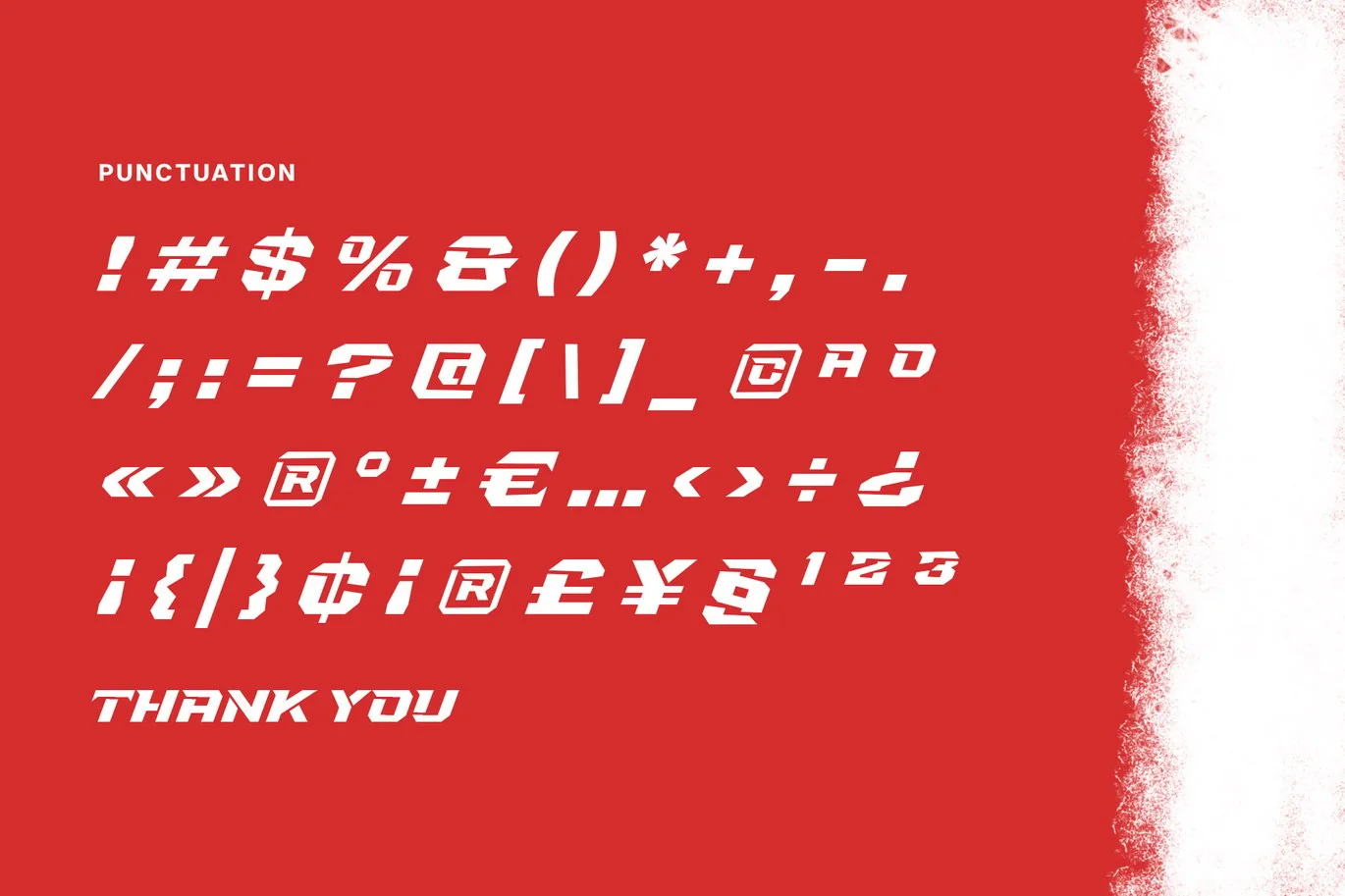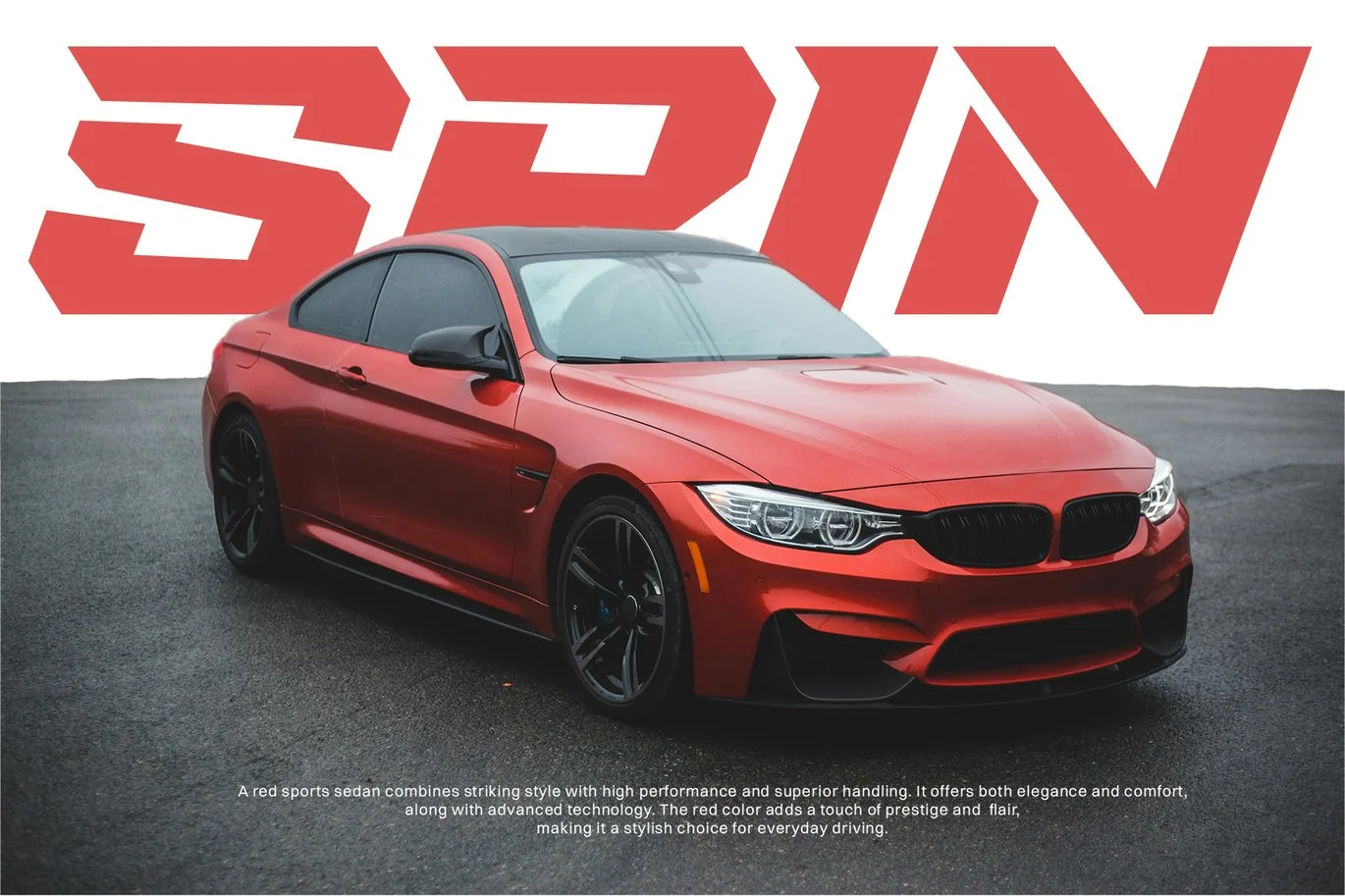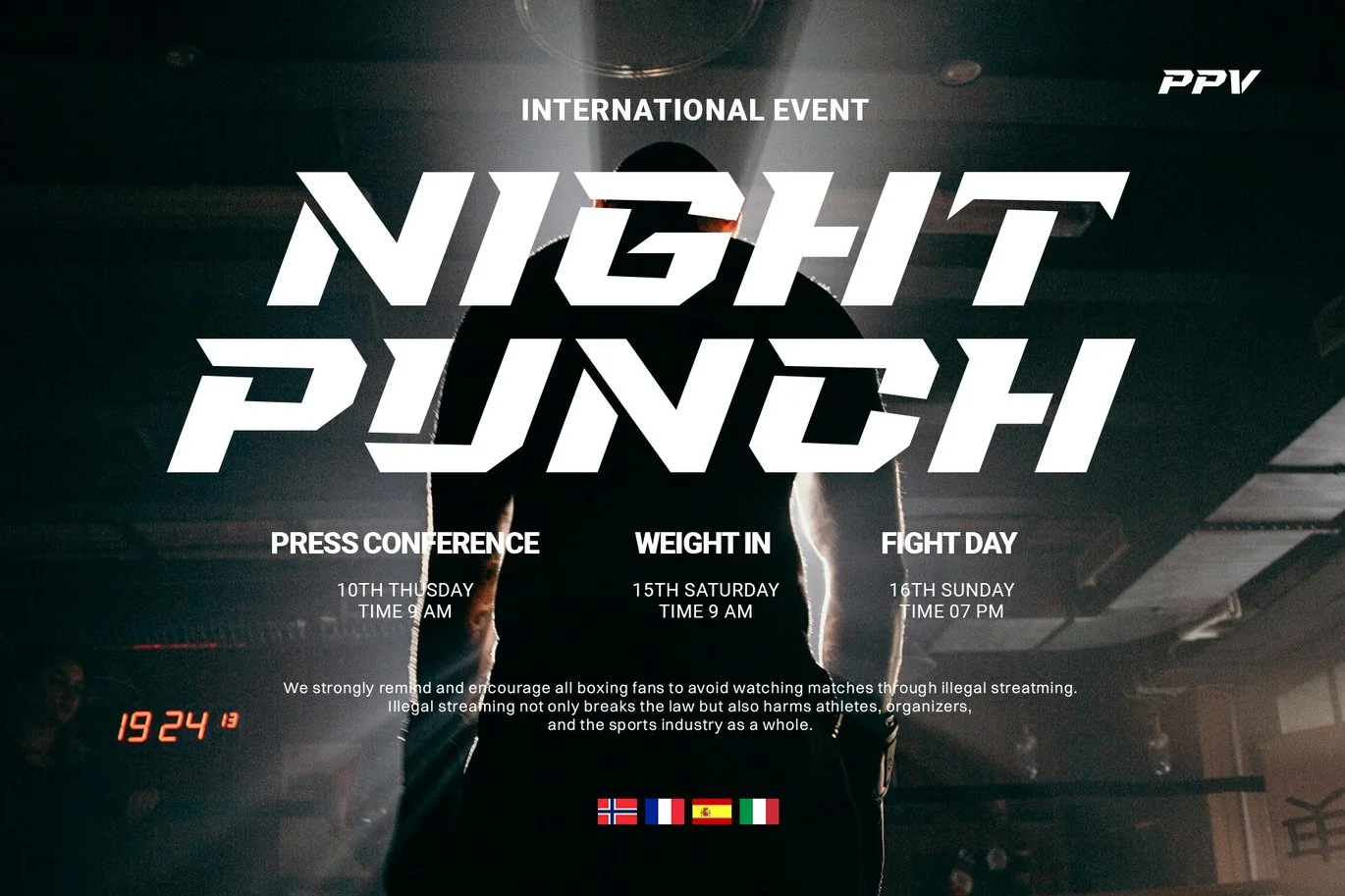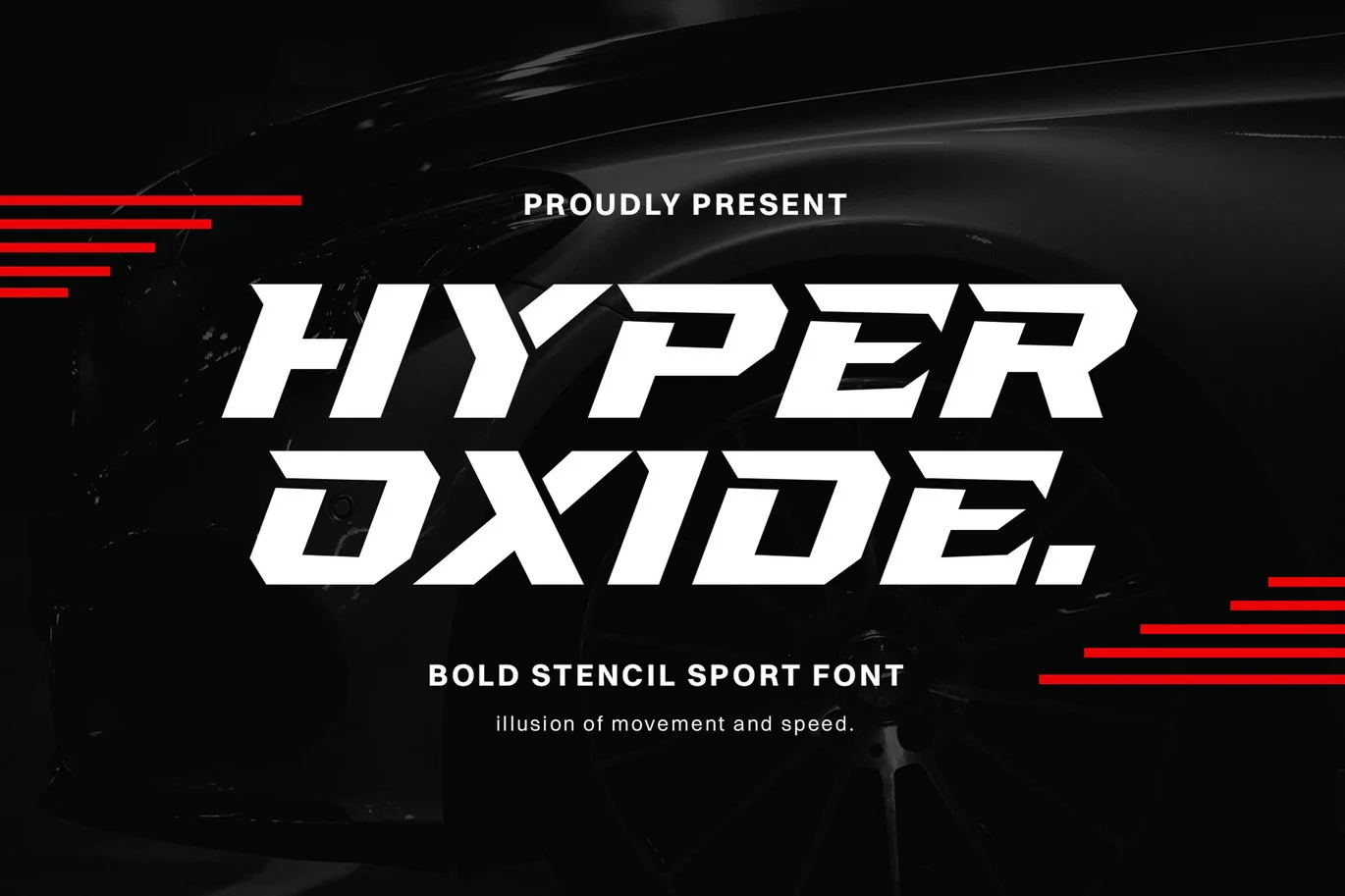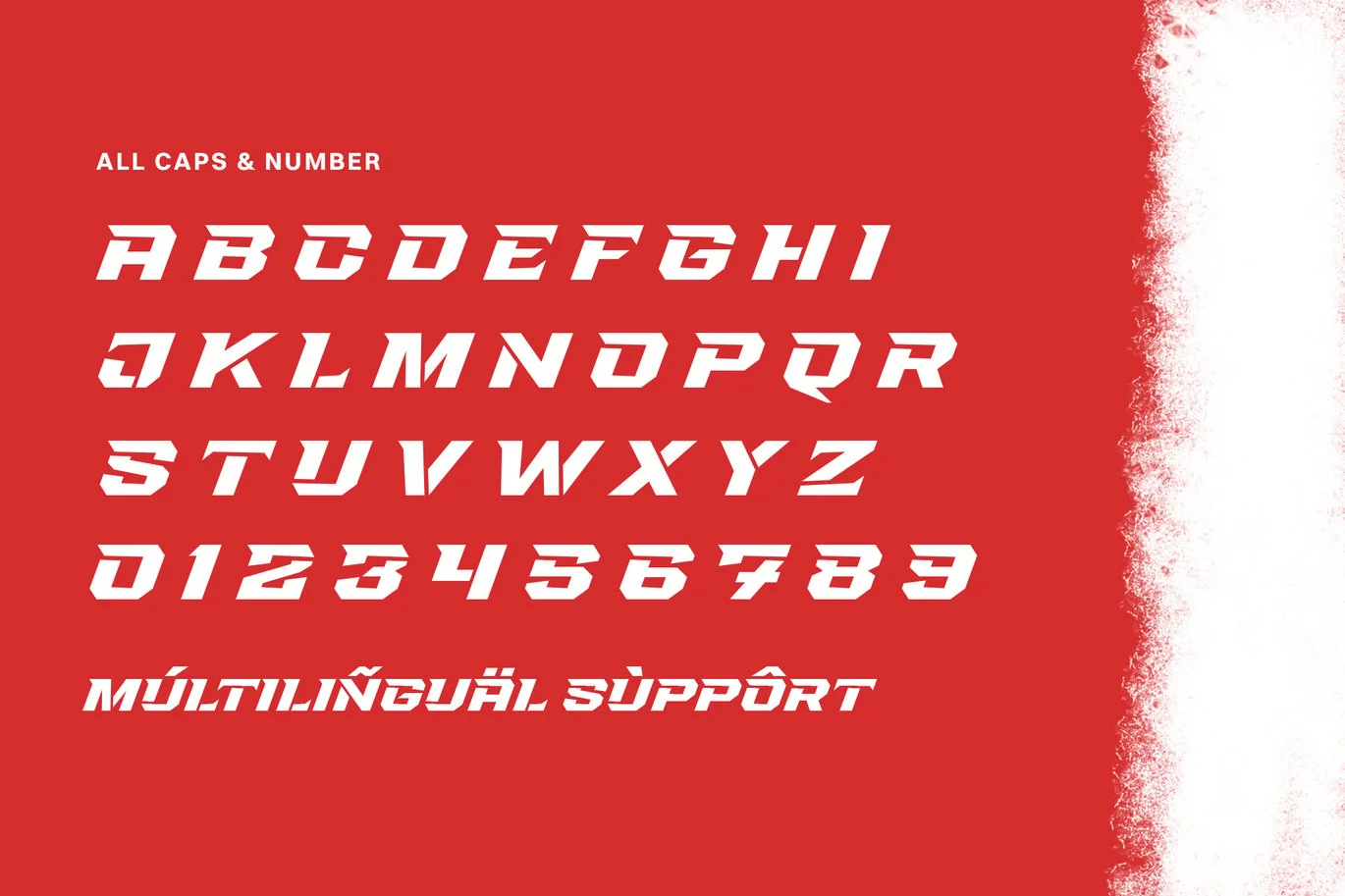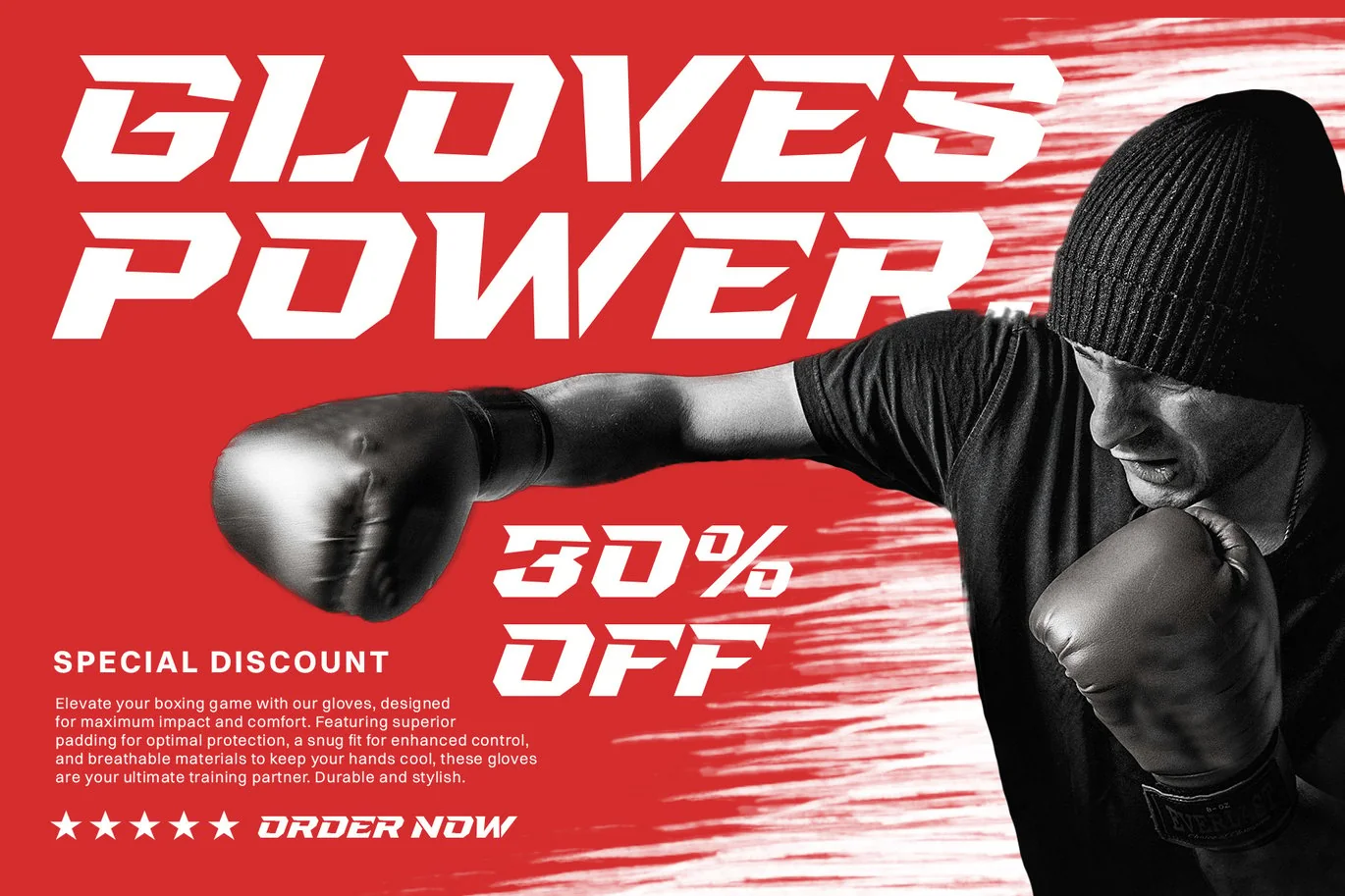
Hyper Oxide – Bold Stencil Sport Font
Introducing Hyper Oxide – Bold Stencil Sport Font, Unleash the power of bold design with Hyper Oxide, a cutting-edge typeface meticulously crafted to embody the spirit of strength and modernity. This bold stencil font is designed to transform your creative projects, infusing them with a dynamic, sporty aesthetic.
At its core, Hyper Oxide captures the essence of industrial and athletic design, reflecting precision and robustness. Its bold lines and unique stencil cutouts make it an ideal choice for various graphic applications, ensuring versatility across multiple platforms and mediums.
Highlighted Features:
- Complete Set: Uppercase letters, numerals, and punctuation marks.
- Unique Design: Stencil cutouts for enhanced visual interest and modern appeal.
- Multilingual Support: Includes characters such as ä, ö, ü, Ä, Ö, Ü, ß, ¿, and ¡.
Hyper Oxide transcends mere functionality; it becomes a statement of bold creativity and innovation. Its adaptability allows it to seamlessly integrate into sports branding, urban posters, dynamic digital content, and more.
The font’s versatility is matched only by its ability to inject a sense of dynamism and energy into every project it graces. Whether it’s amplifying a sports event poster or adding a touch of modernity to streetwear branding, Hyper Oxide lends a powerful charm that captivates audiences.
In conclusion, Hyper Oxide Bold Stencil Sport Font isn’t just a typeface; it’s a conduit for strong, modern design, a bridge between bold creativity and contemporary aesthetics. Embrace its power, leverage its versatility, and allow it to become the catalyst for your innovative journey. Unlock the boundless potential of Hyper Oxide, where each character defines strength and every design showcases the pinnacle of modern sport aesthetics.